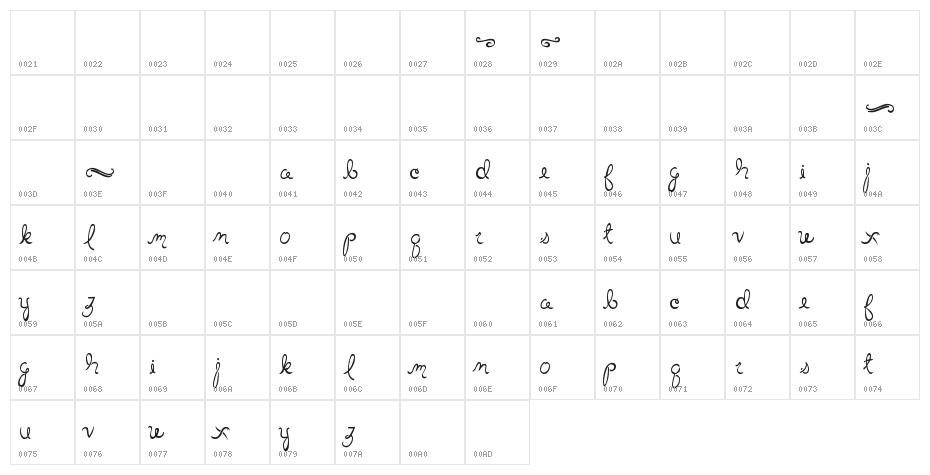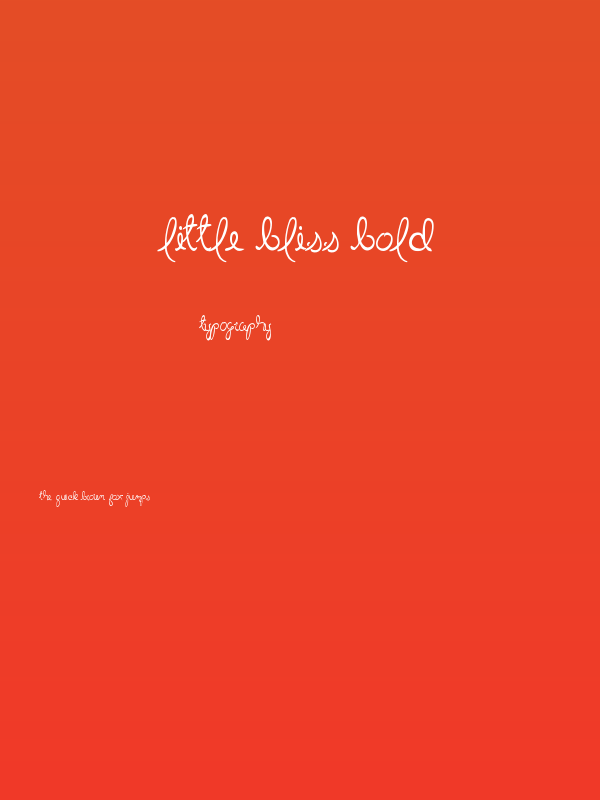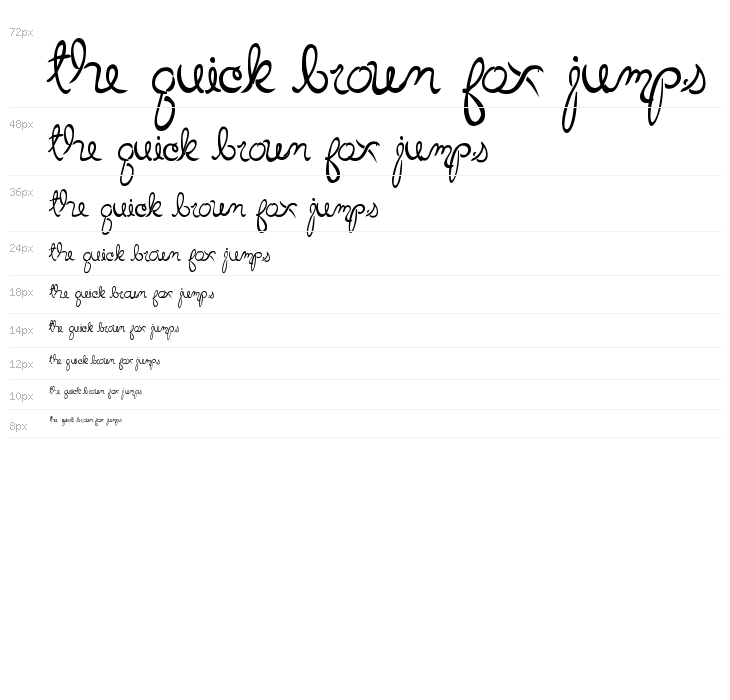
Little Bliss Bold Font
Little Bliss Bold Description
This font features a whimsical and playful script style, characterized by its flowing, interconnected letters. The strokes are smooth and rounded, with a consistent thickness that gives it a bold appearance. The letters have a hand-drawn quality, with slight variations that add to its charm. The font maintains a casual elegance, making it suitable for creative and informal applications. Its unique style is accentuated by the decorative swashes and loops, particularly in letters like 'g', 'j', and 'y'. The overall look is both artistic and approachable, ideal for projects that require a personal touch.
Use CaseLogos, Invitations, Greeting Cards
Proposed ProjectsIdeal for greeting cards, invitations, personal branding, and creative projects that require a playful and artistic touch.